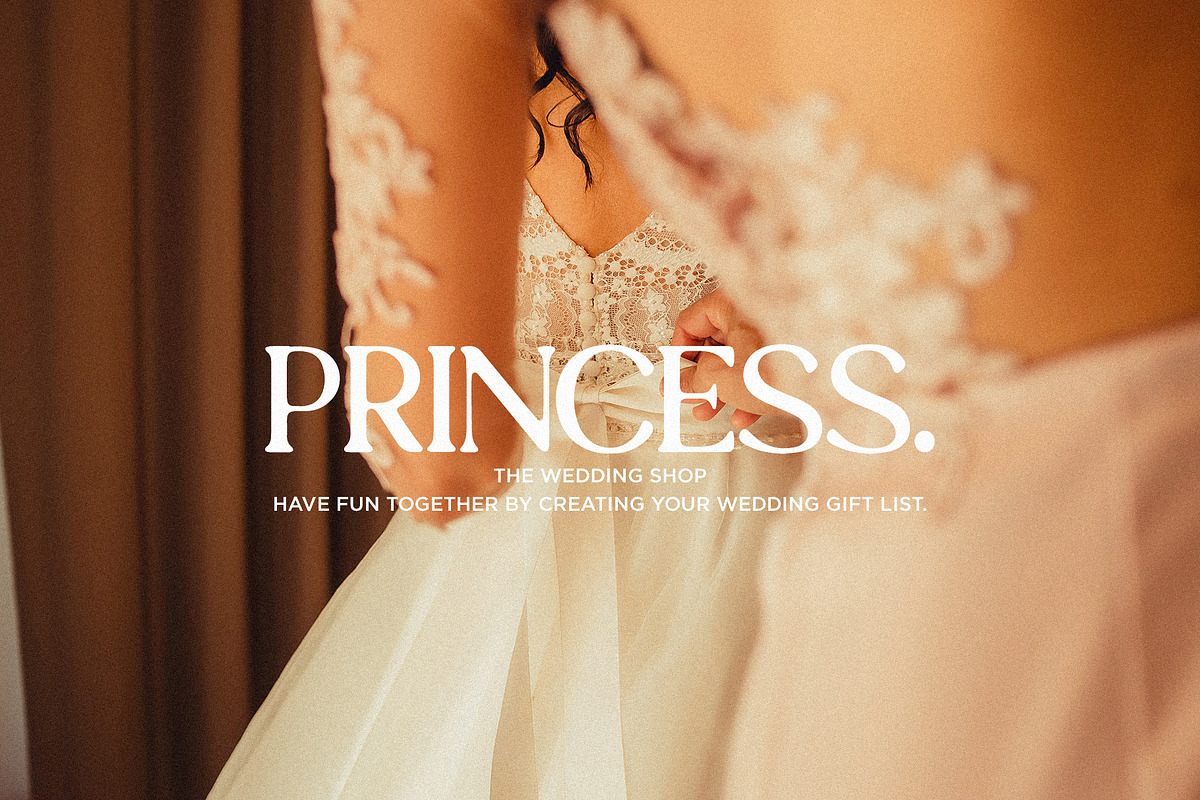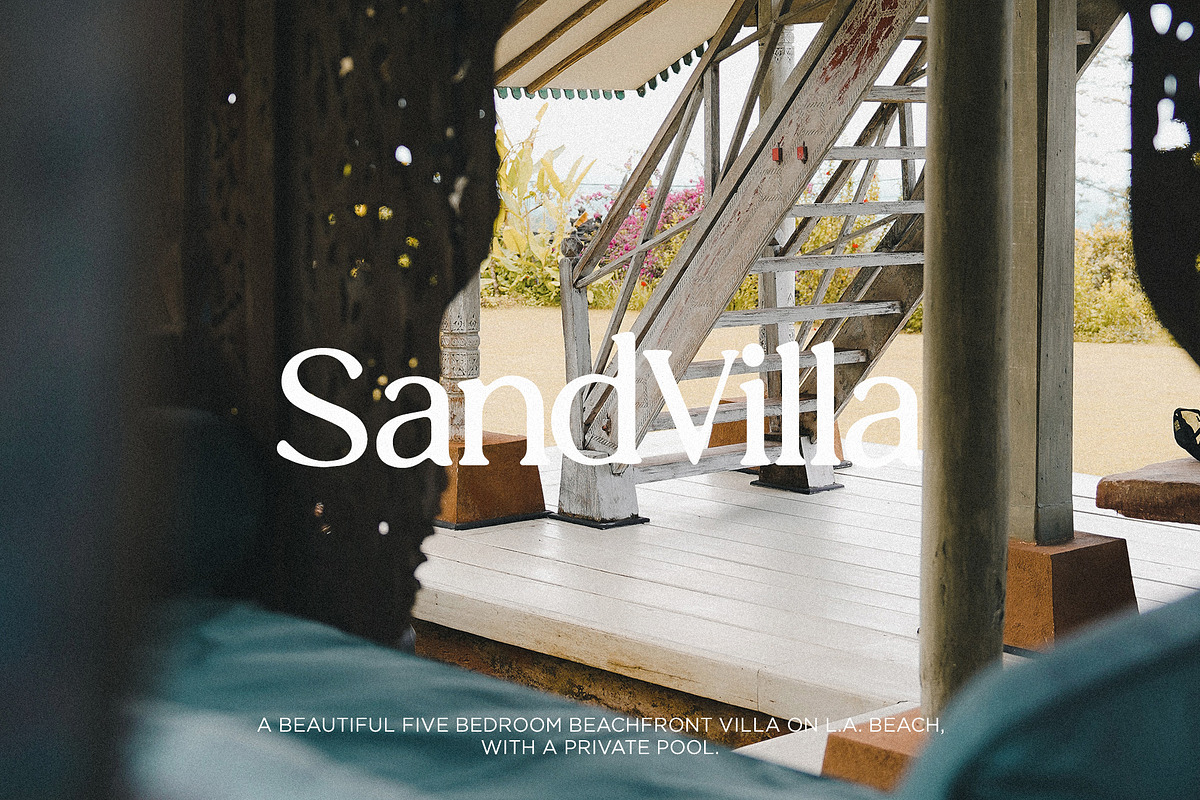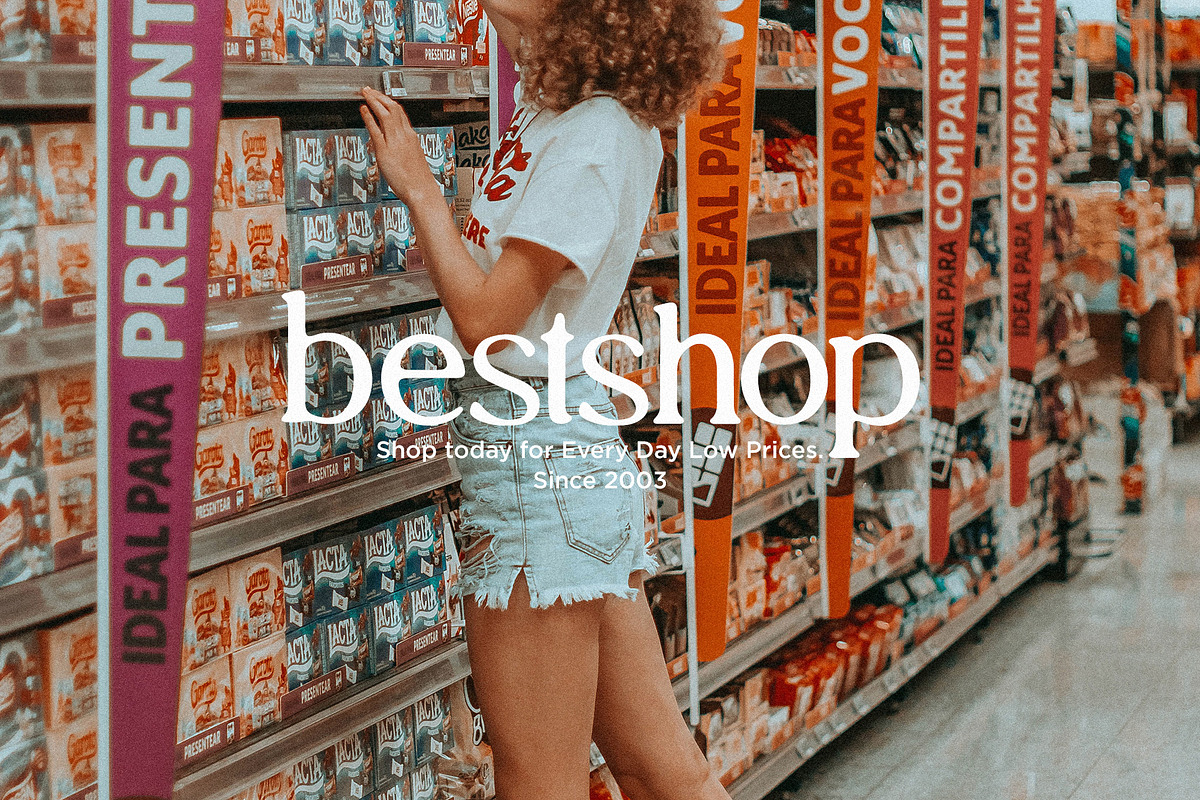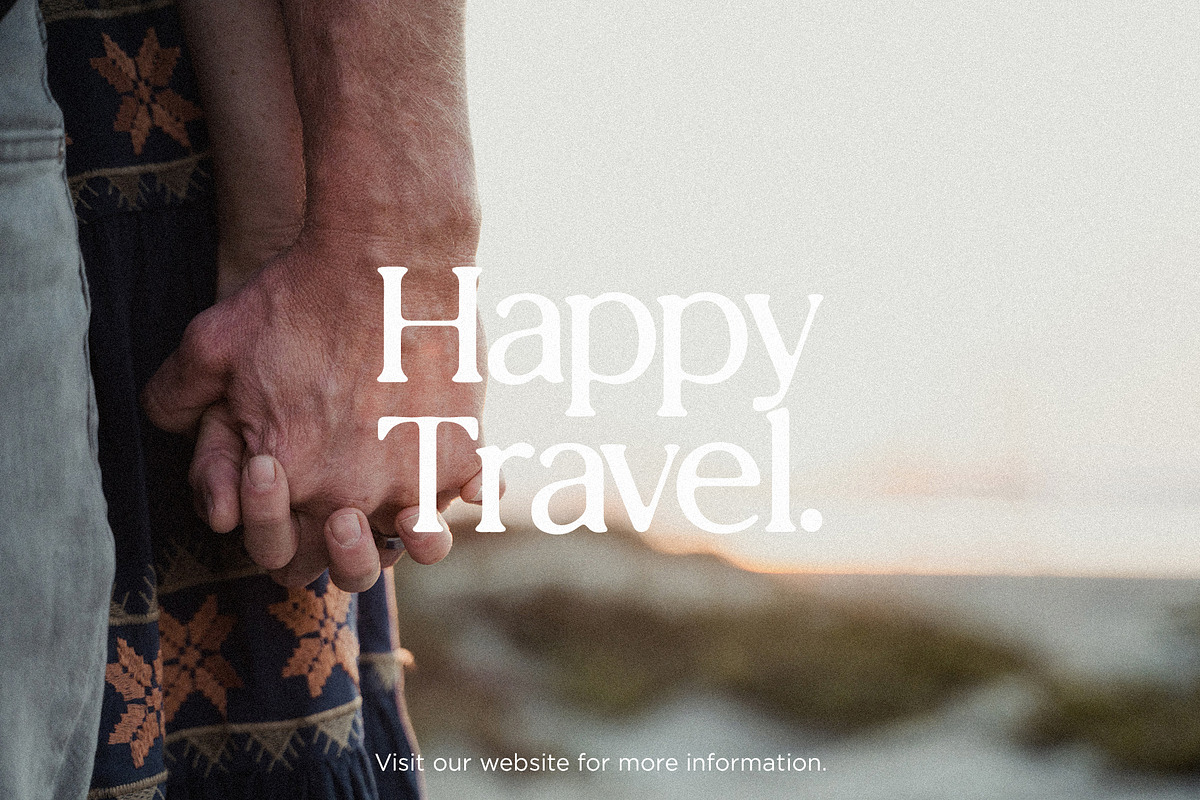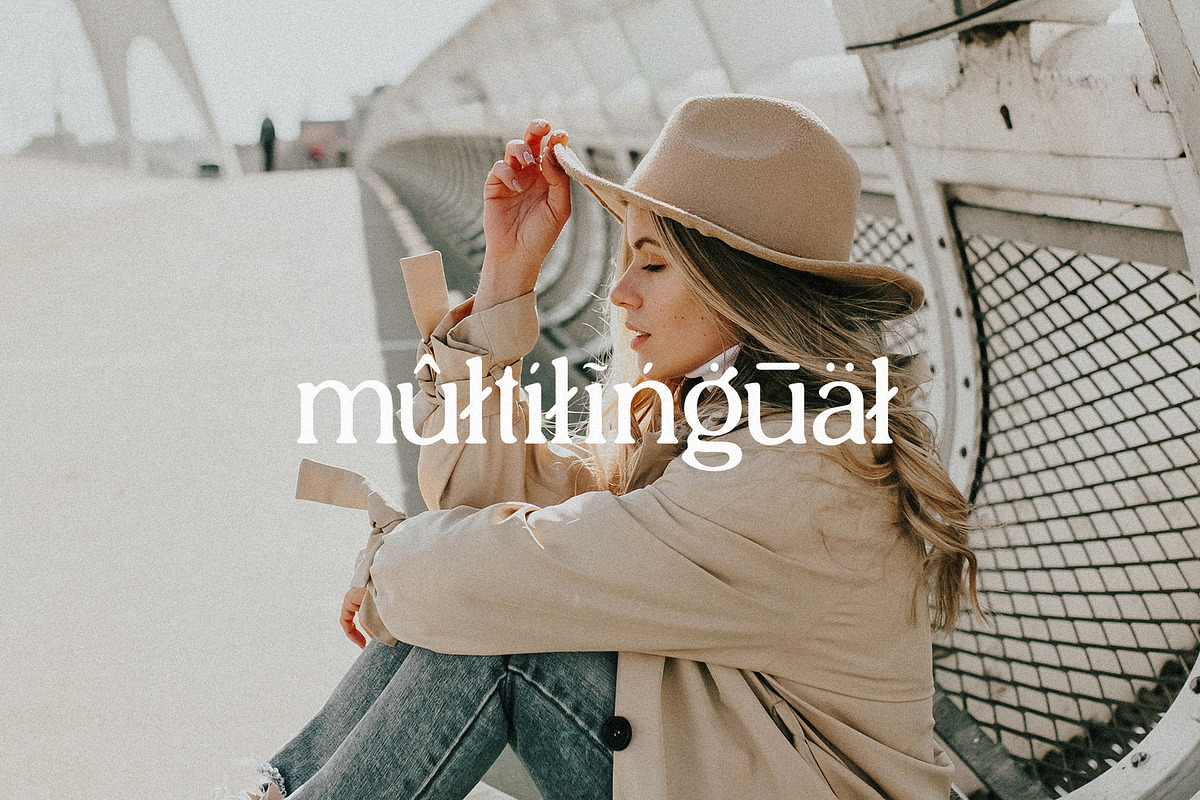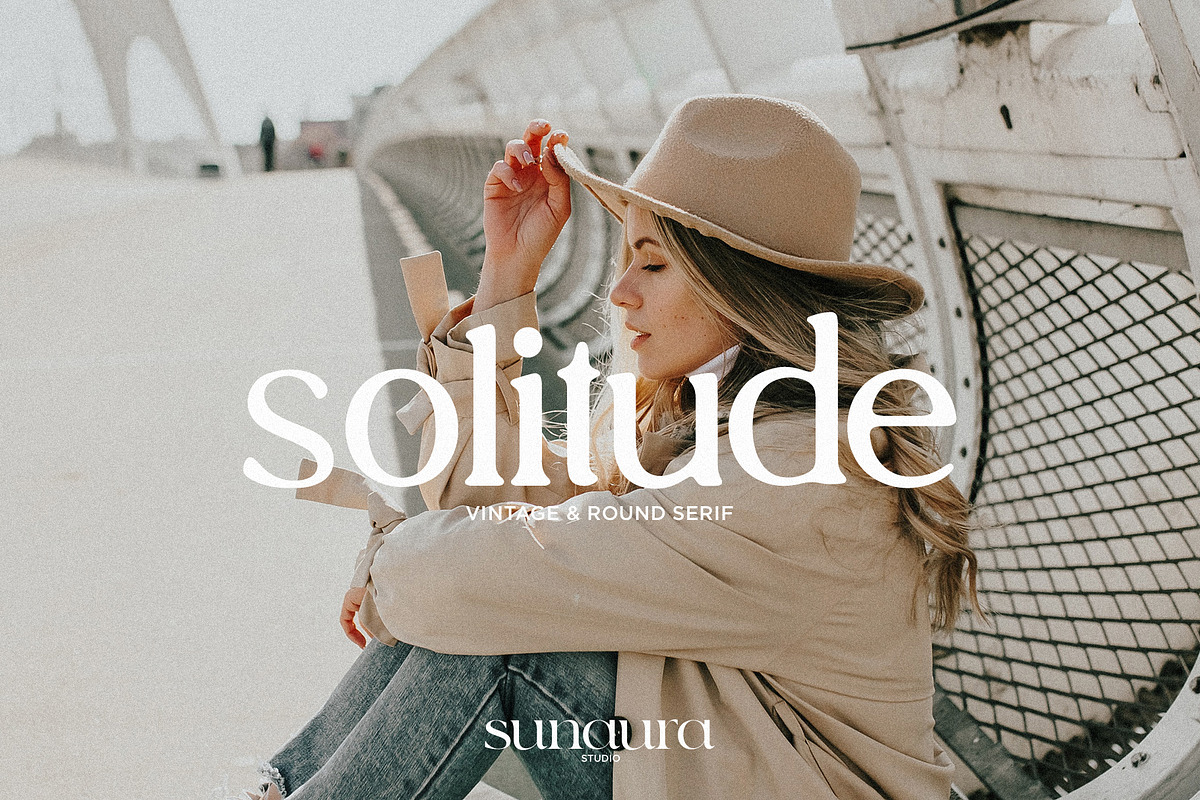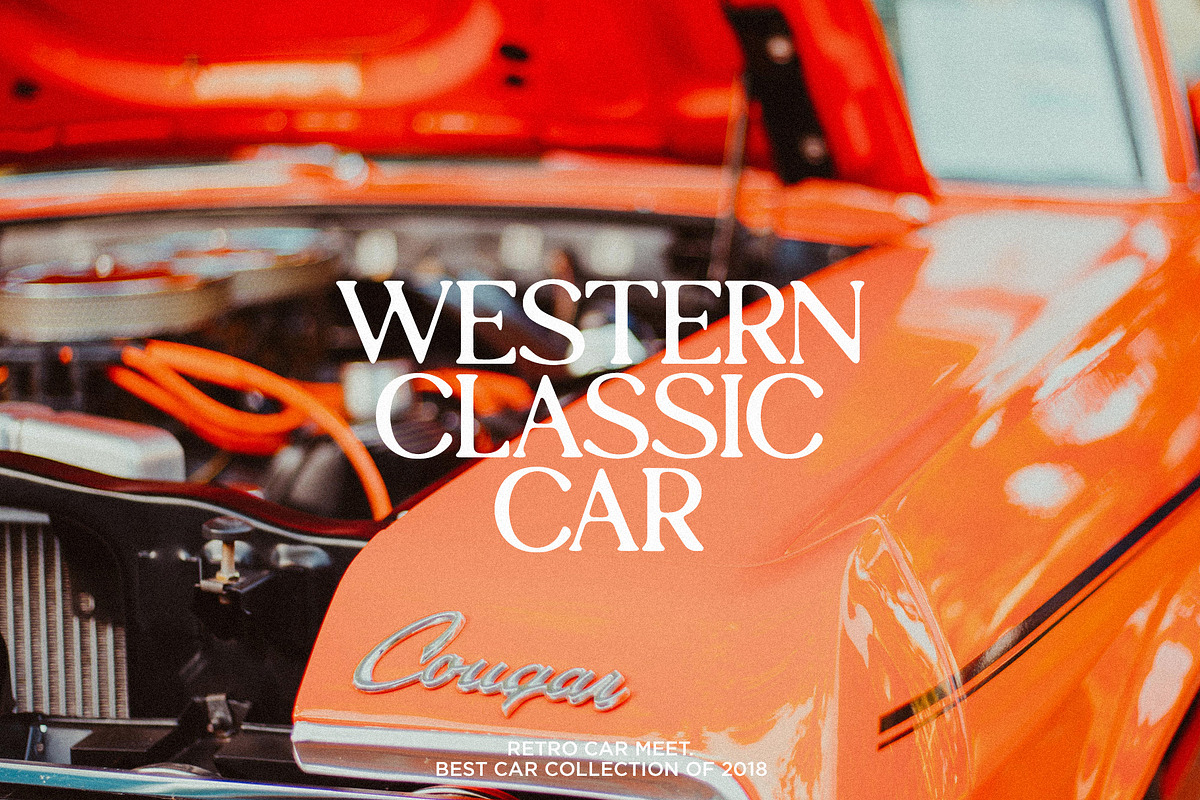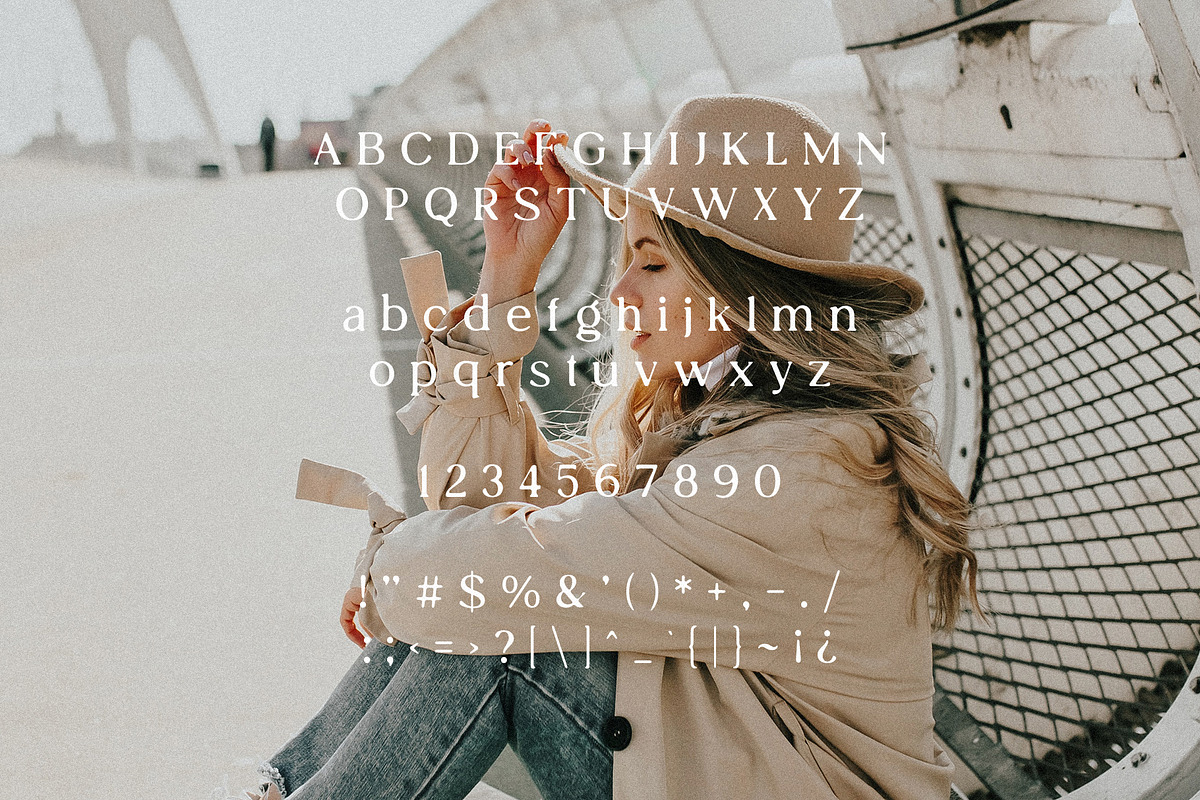
Solitude - Vintage & Round Serif
Solitude - Vintage & Round Serif is a classic typeface that combines vintage aesthetics with a modern twist. This serif font features rounded edges, giving it a unique and elegant look. Perfect for projects that require a touch of nostalgia and sophistication, Solitude is versatile and can be used for various design purposes. Its timeless appeal makes it a popular choice for branding, editorial design, and more. Solitude features multilingual support, over 250+ glyphs, uppercase & lowercase letters, numbers & symbols.